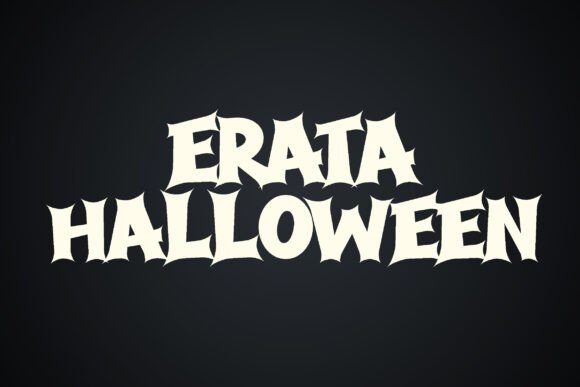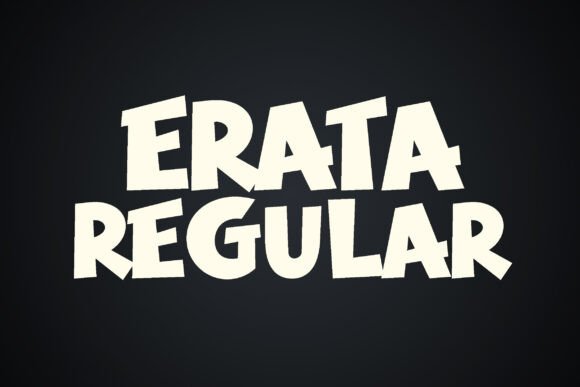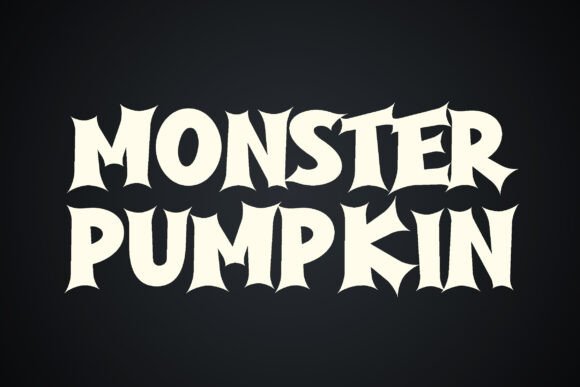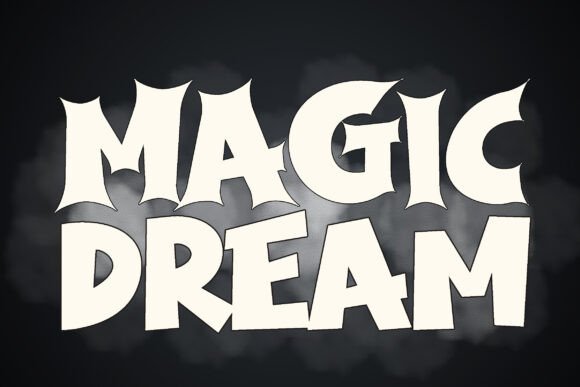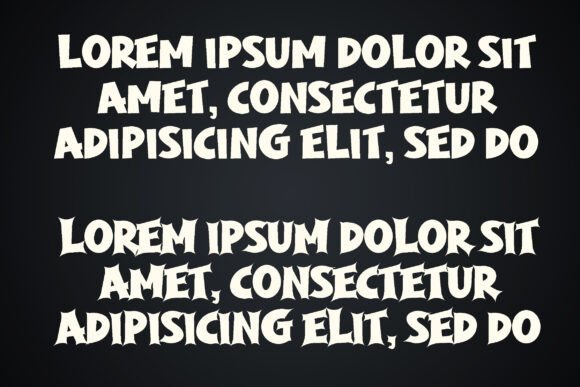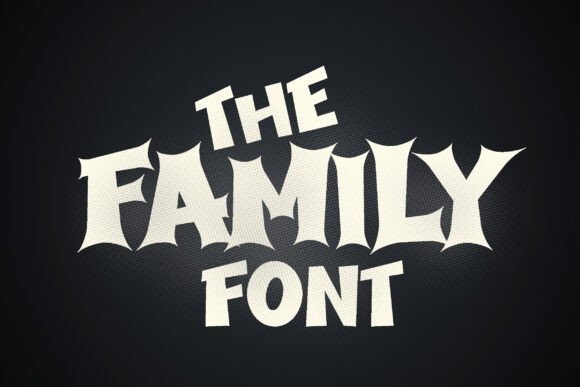
The Erata Font: A Bold and Beautiful Addition to Your Design Arsenal
Erata is a bold display type font that’s perfect for headlines, cards, invites, logotypes, magazines, and of course, movie posters and t-shirts. It’s a font duo that’s both pretty and elegant, with a modern twist that’s sure to make your designs pop.
What I Love About Erata ✨
- 💥 **Bold and eye-catching**: Erata is perfect for making a statement with your designs.
- 📚 **Elegant and modern**: Its sleek lines and curves give it a sophisticated feel that’s perfect for high-end designs.
- 👫 **Friendly and approachable**: Despite its boldness, Erata has a friendly vibe that’s perfect for designs that need to connect with their audience.
- 🎨 **Highly versatile**: Use it for headlines, logotypes, or even as a decorative element – Erata is a chameleon font that adapts to any design style.
While Erata is an amazing font, there are a few things to keep in mind:
- 🤔 **Limited use for body text**: Erata is a display font, so it’s best used for headlines and titles rather than body text.
- ⚠️ **May not be suitable for small sizes**: Due to its bold nature, Erata may not be legible at very small font sizes.
The Story Behind Erata
Erata was designed by a team of creatives who wanted to create a font that was both bold and beautiful. Inspired by modern design trends and a passion for typography, Erata was born. While the designer’s story is shrouded in mystery, one thing is clear: Erata is a font that’s here to stay.
Q: What is Erata’s personality?
A: Erata is a bold, elegant, and modern font with a friendly vibe.
Q: Is Erata a script font?
A: No, Erata is a sans-serif font with a bold and modern aesthetic.